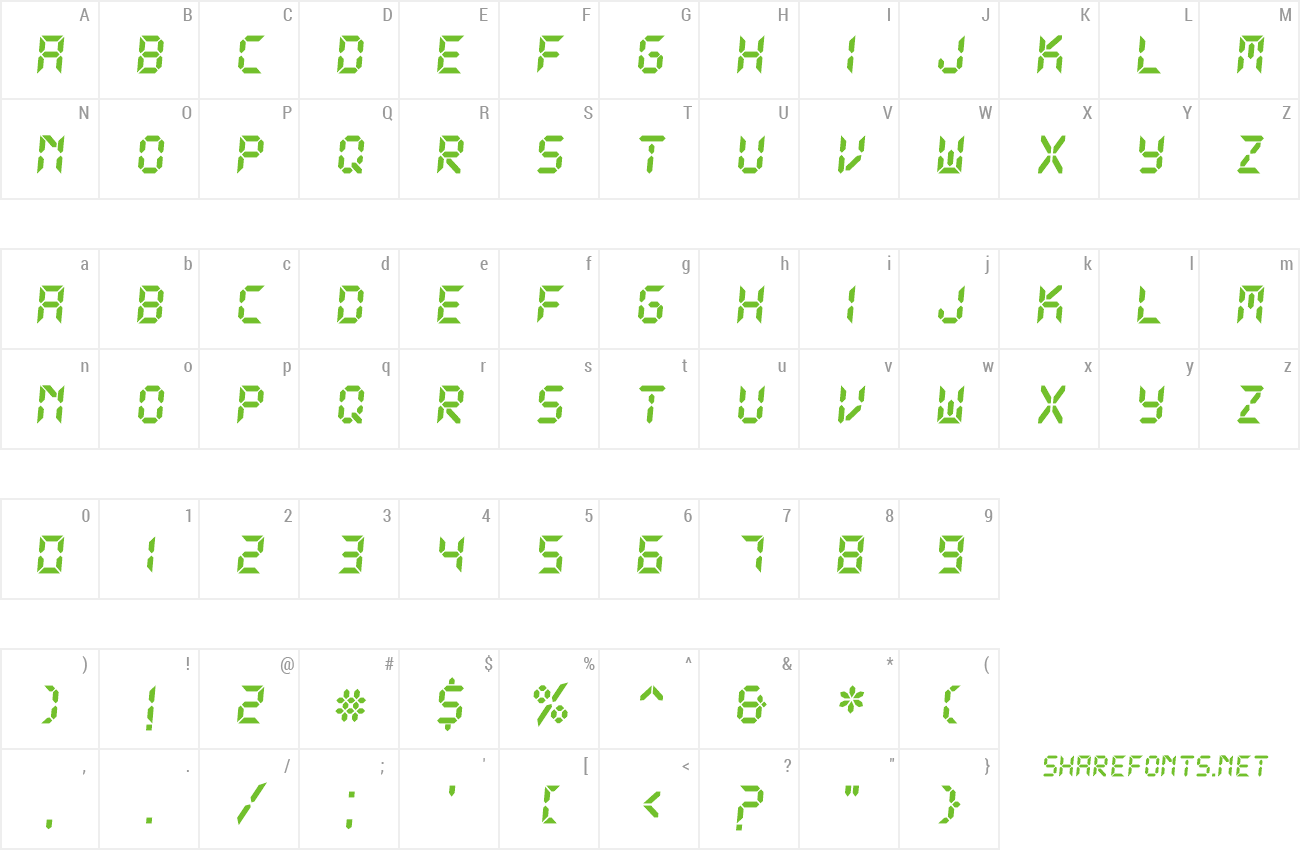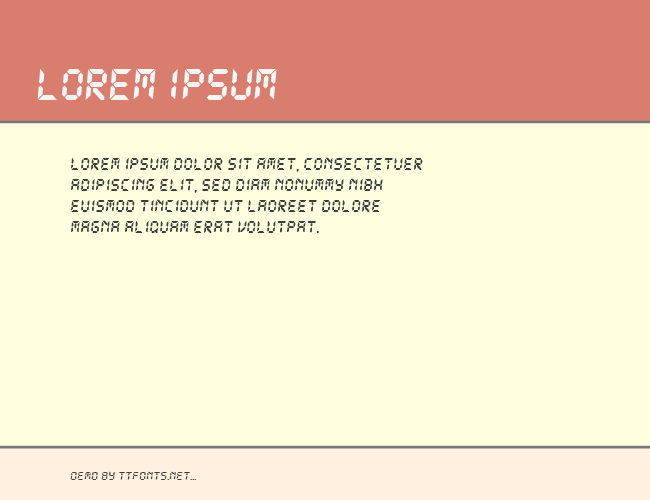
Ds Digital Font - Made from font designer named dusit supasawat. Ds digital display font is a simple pixel typeface in regular and extras.
Made From Font Designer Named Dusit Supasawat.
Ds digital display font is a simple pixel typeface in regular and extras.